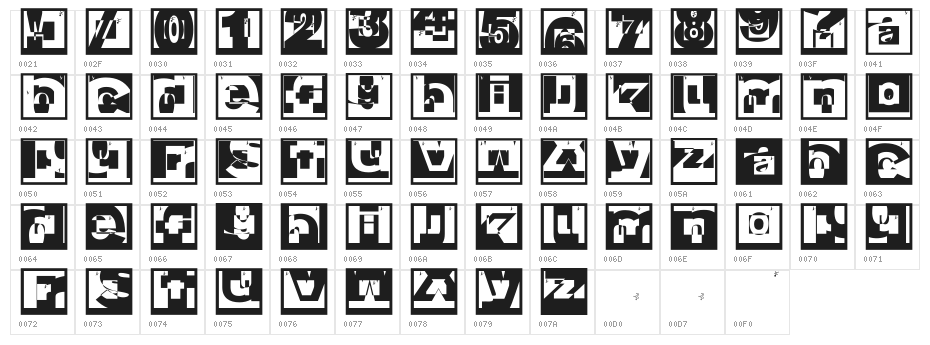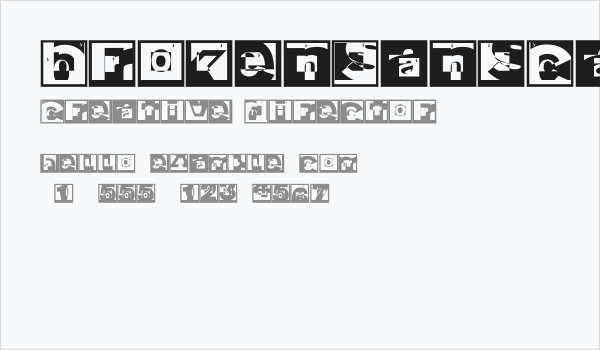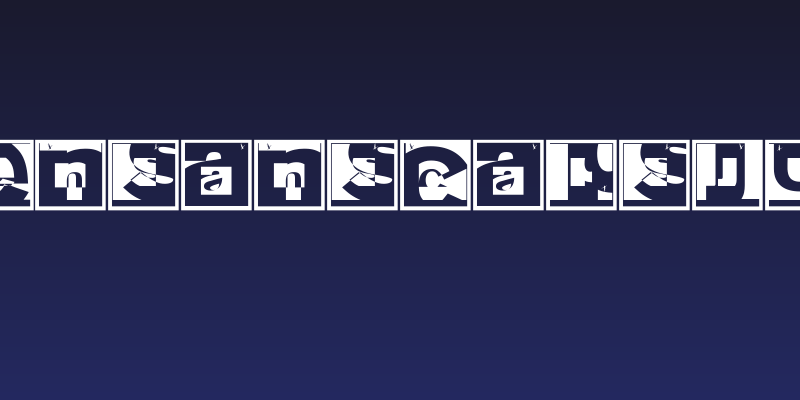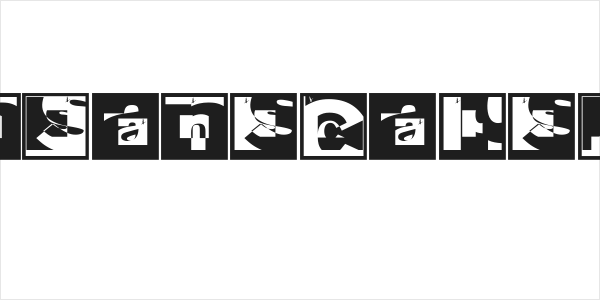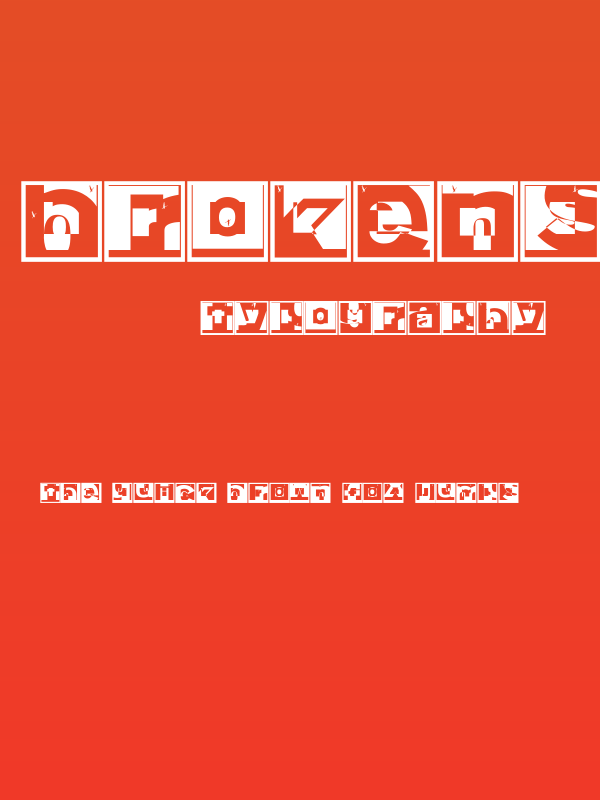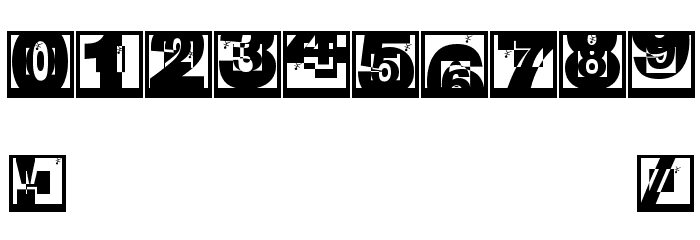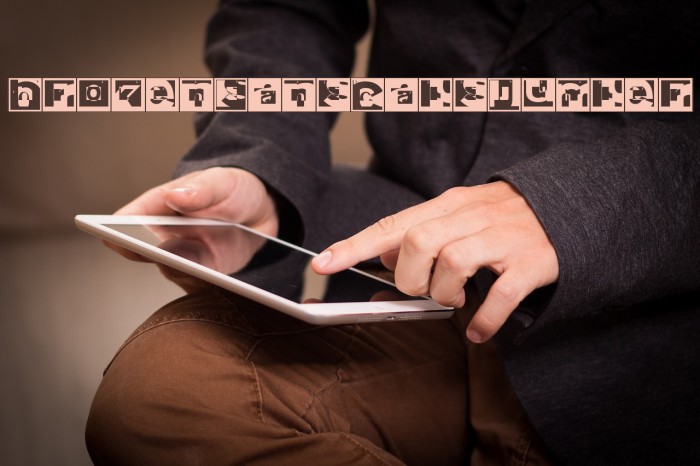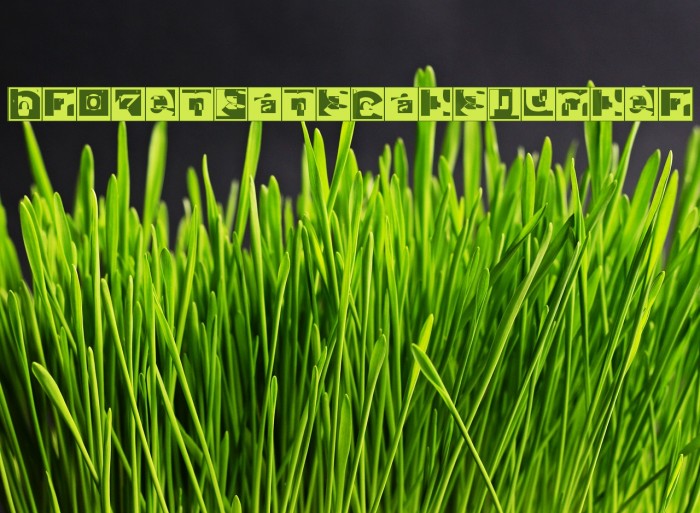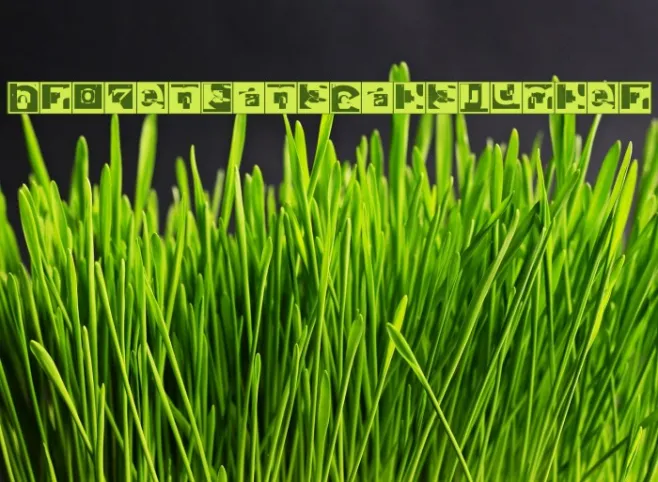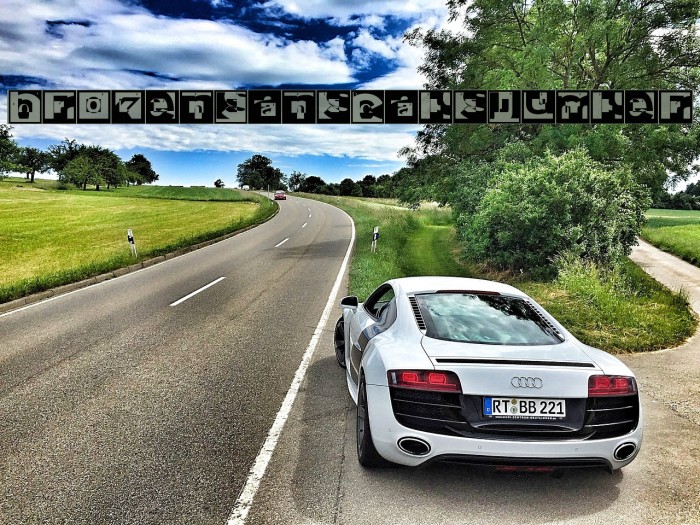
BrokenSansCapsJumper Font
BrokenSansCapsJumper Description
This font features a highly stylized and fragmented design, where each character is broken into distinct geometric shapes. The letters are encased in individual boxes, creating a unique visual effect that combines elements of modern art with typography. The font's bold, angular lines and high contrast between black and white make it stand out, while the fragmented style adds a sense of dynamism and movement. The uppercase and lowercase letters maintain a consistent style, with numbers and special characters following the same design principles. This font is ideal for projects that require a bold, artistic statement.
| Overall Style | Modern, Artistic |
| Proposed Projects | Ideal for album covers, posters, modern art exhibitions, and any project needing a bold, artistic touch. |